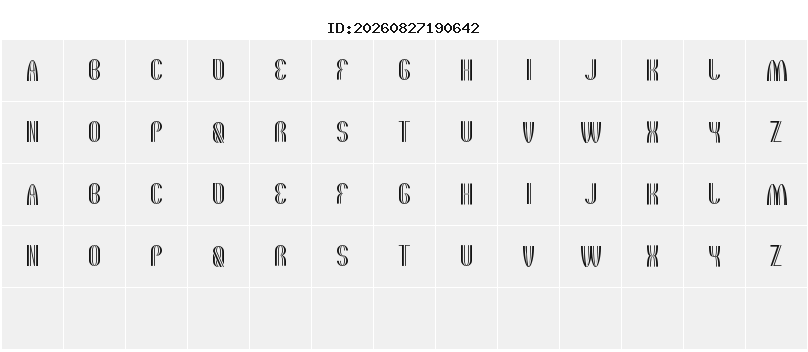
the quick motorcross Preview
• Font Name: the quick motorcross
About the quick motorcross.ttf
the quick motorcross.ttf is a modern, elegant sans-serif font designed for ultimate readability and visual harmony. Perfect for branding, headlines, web design, and print materials.